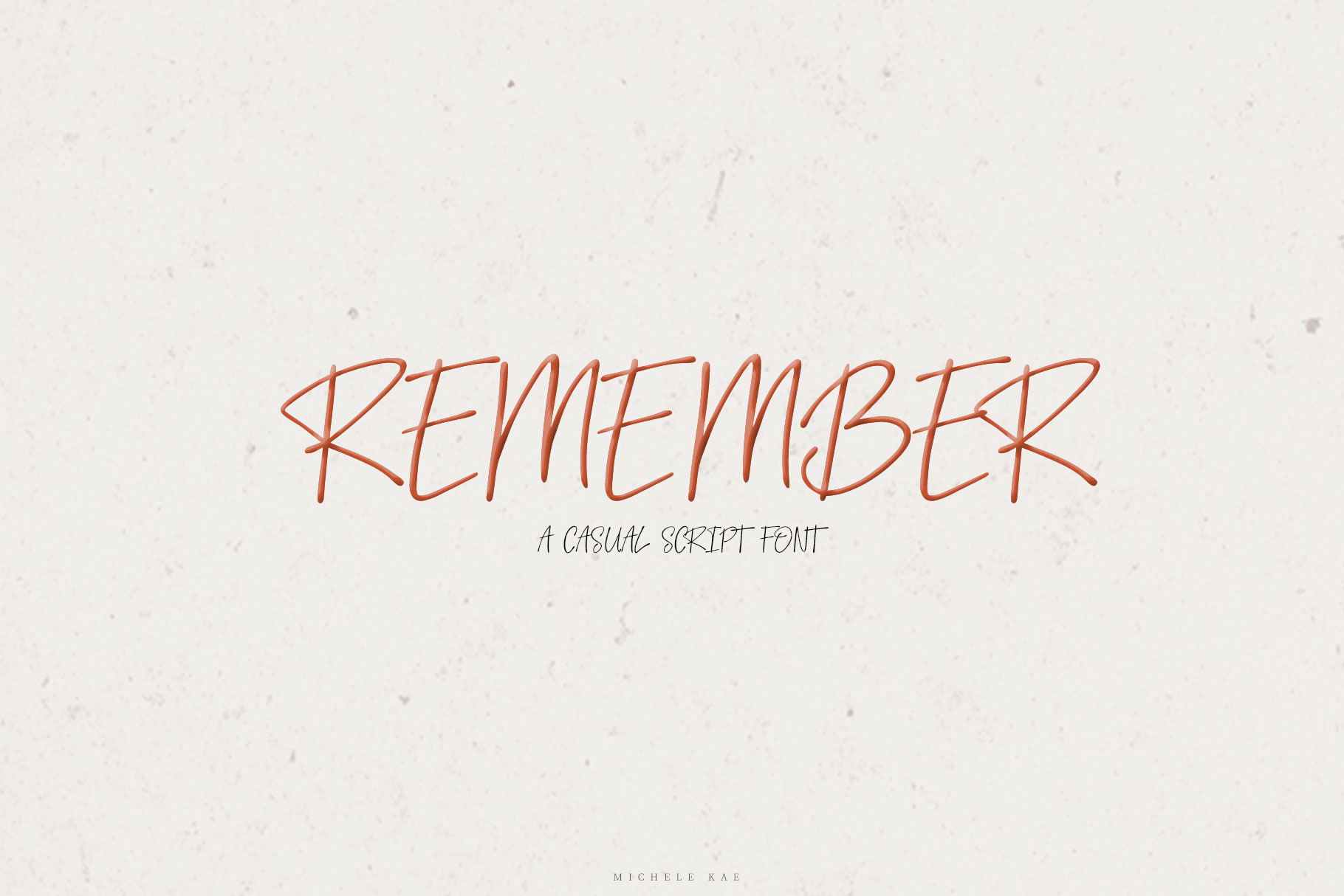
Remember | A Casual Script Font
Remember is a casual, care free script font that can be used for logos, branding, social media, quotes and so much more! Remember includes uppercase and lowercase letters, numerals, punctuation, ligatures and alternates.